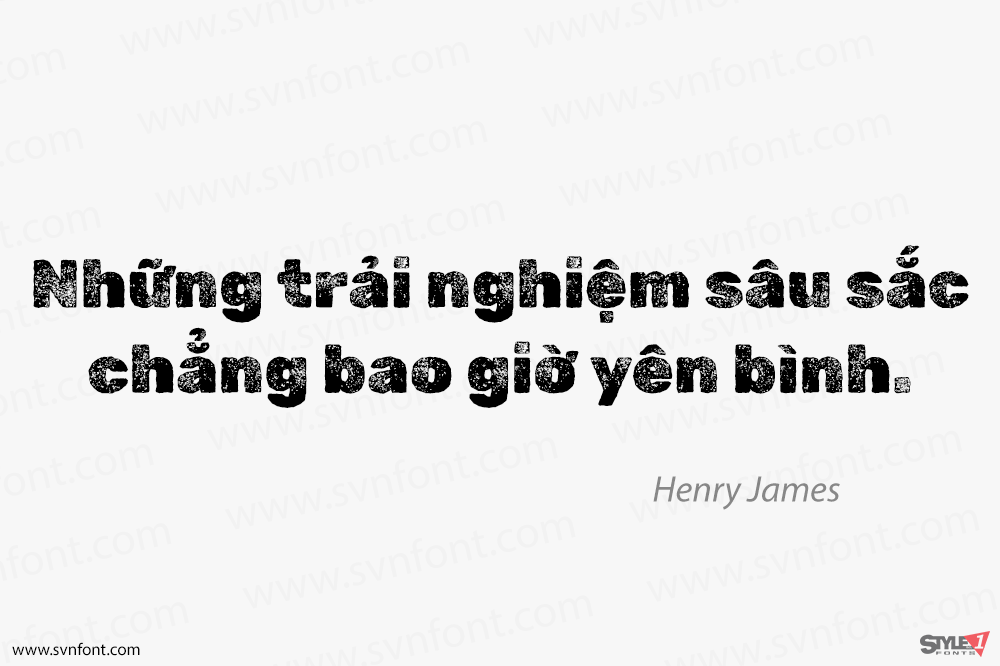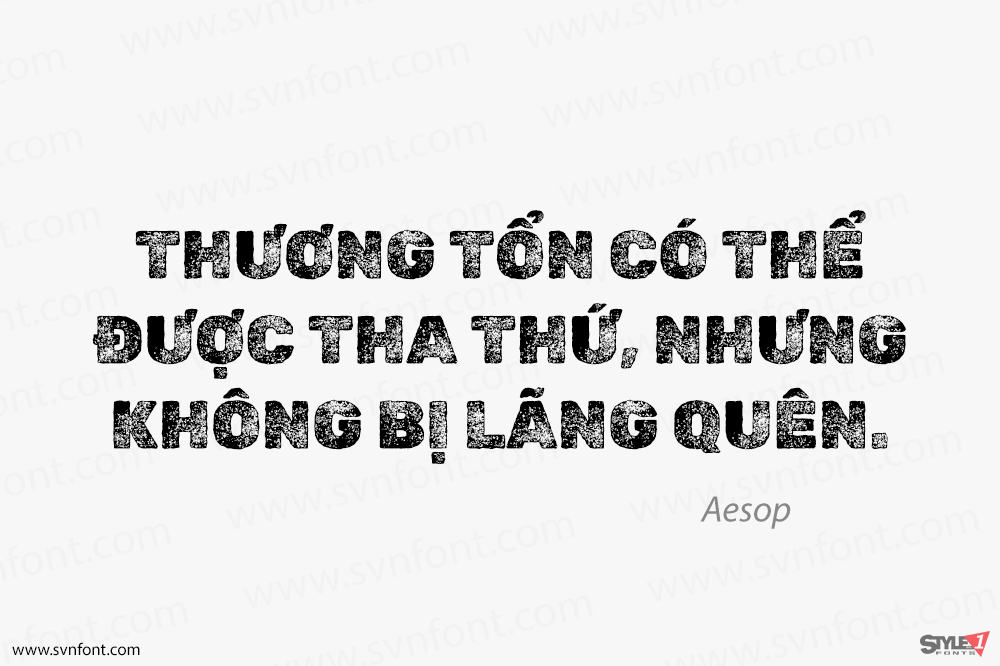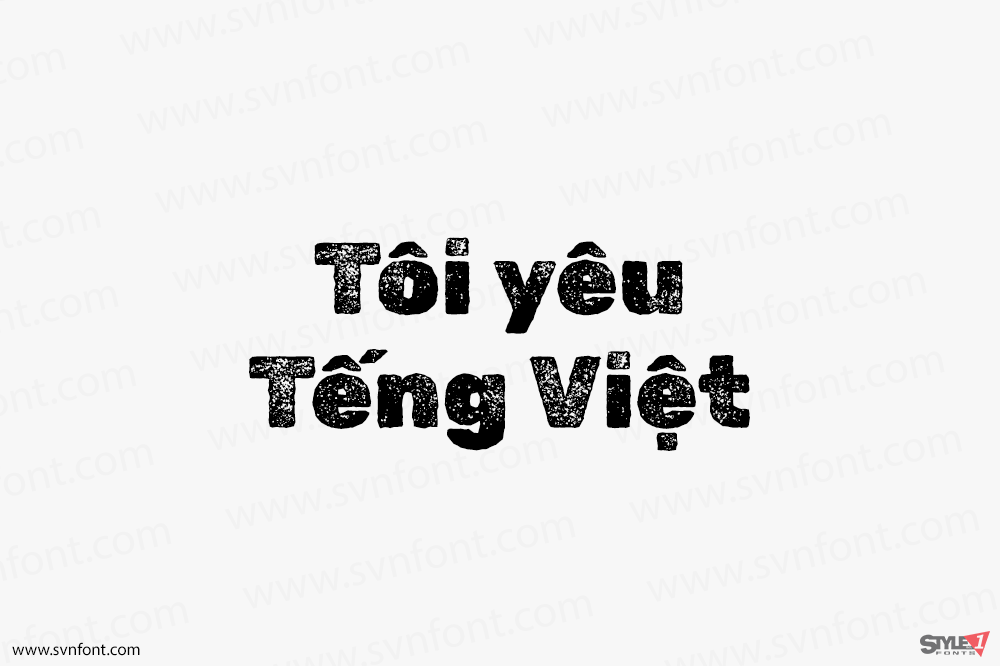
The Generative Fonts is an original, script-generated collection of fonts based on the Google Fonts Rubik by Hubert and Fischer, Meir Sadan and Cyreal. The code used to generate it can be found at github.com/NaN-xyz/Glyph-Filters.
Nhà thiết kế: Hubert and Fischer, NaN
Nhà phát hành: Hubert & Fischer, NaN